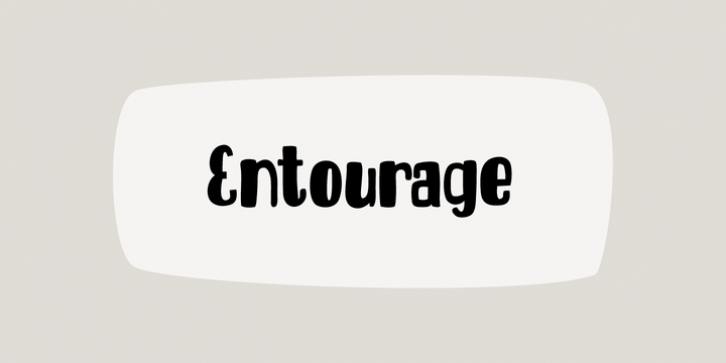
Entourage is a sweet little font - rounded, quirky and cute. Entourage will shine on product packaging, posters and websites. Comes with an ‘entourage' of diacritics.